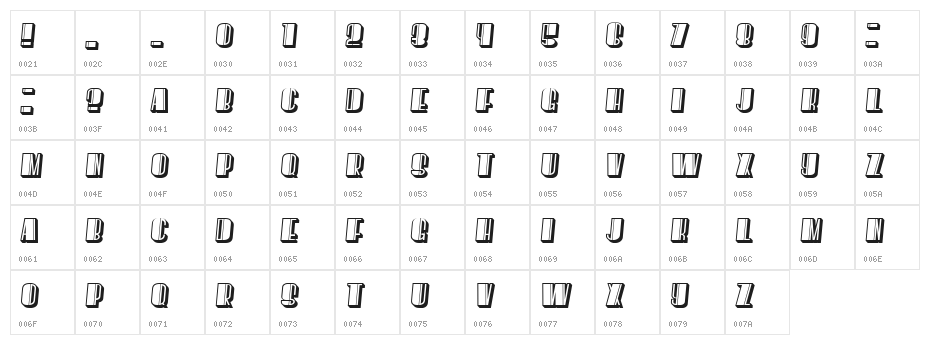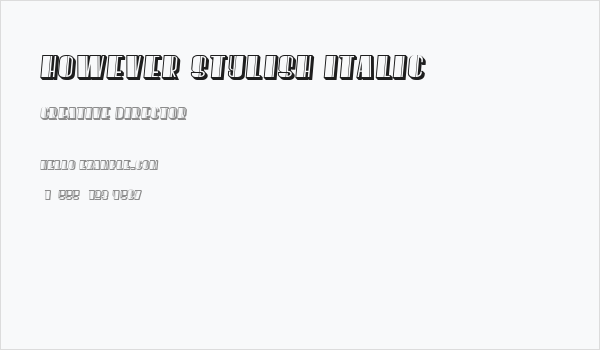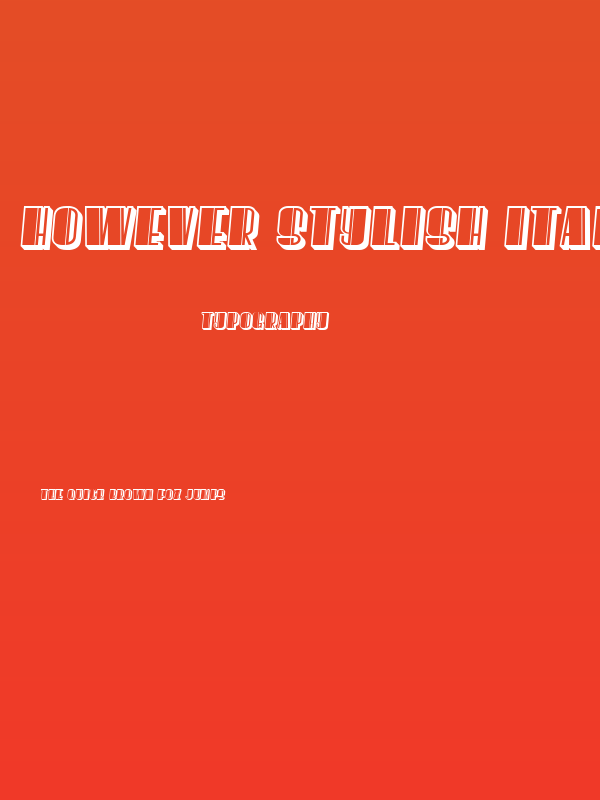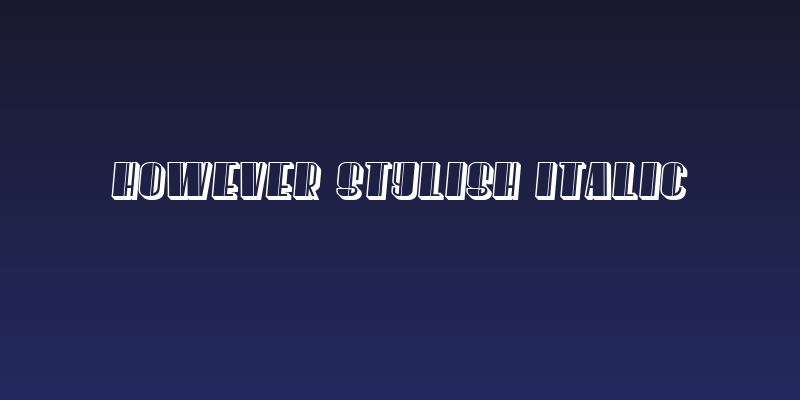
However Stylish Italic Font
However Stylish Italic Description
This font features a bold and dynamic 3D effect, giving each character a sense of depth and movement. The letters are capitalized and have a strong, impactful presence, making them ideal for attention-grabbing headlines or titles. The italicized style adds a sense of motion and modernity, while the thick outlines enhance the visual weight of each character. The font maintains a consistent width across all characters, ensuring uniformity and balance. The numbers and special characters follow the same stylistic approach, providing a cohesive look throughout. This font is perfect for projects that require a bold statement or a modern, edgy aesthetic.
| Proposed Projects | Ideal for headlines, posters, logos, and any design needing a bold, modern touch. |